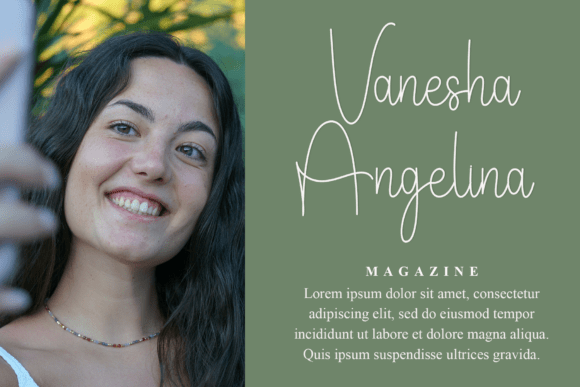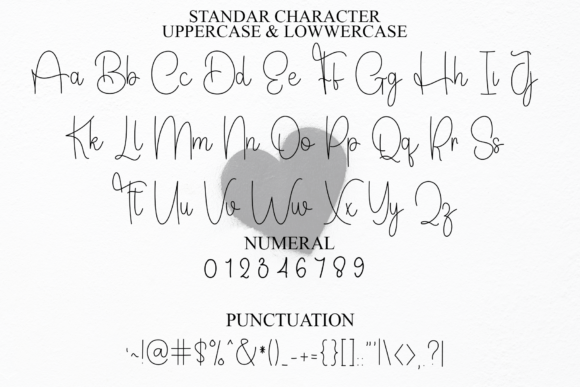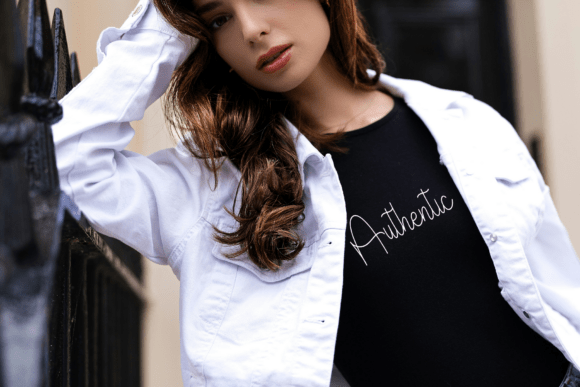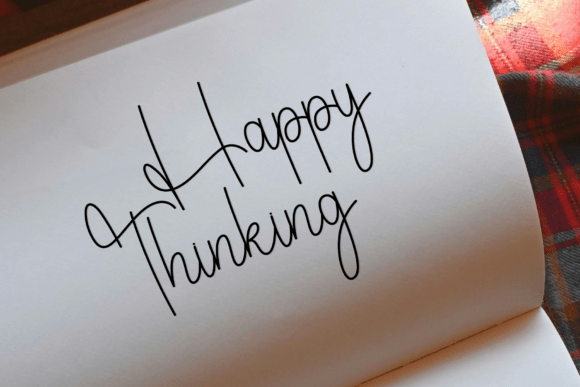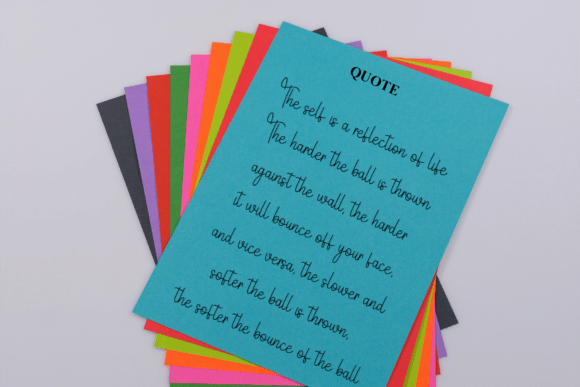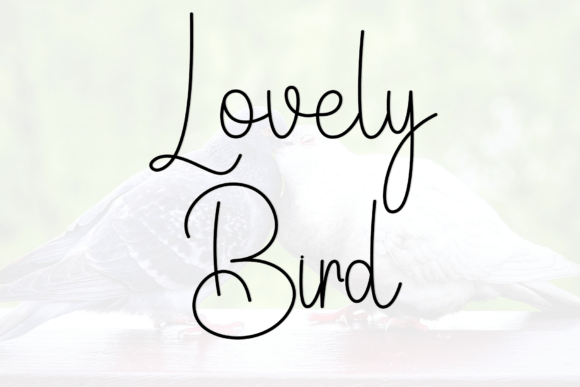
Introducing Friendstar Font: The Perfect Blend of Casual and Creative
Are you tired of using the same old fonts for your personal projects, invitations, and social media graphics? Look no further than Friendstar Font, a casual and creative typeface that exudes warmth and friendliness. With its round, playful strokes, Friendstar Font creates a relaxed and approachable feel that’s perfect for designers and crafters looking to add a personal touch to their work.
The Charm of Friendstar Font
Friendstar Font boasts a charming, hand-drawn aesthetic that adds a fun and unique touch to any design. Its playful strokes and rounded edges create a sense of approachability and warmth, making it perfect for projects that require a personal and friendly feel. Whether you’re designing invitations, social media graphics, or personal projects, Friendstar Font is sure to make your work stand out.
Key Features of Friendstar Font
- Casual and Creative: Friendstar Font is designed to be casual and creative, making it perfect for personal projects and social media graphics.
- Warm and Friendly: The font’s round, playful strokes create a warm and friendly feel that’s sure to engage your audience.
- Hand-Drawn Aesthetic: Friendstar Font features a charming, hand-drawn aesthetic that adds a unique touch to any design.
Why Choose Friendstar Font?
So why choose Friendstar Font over other fonts? Here are just a few reasons:
- Unique and Creative: Friendstar Font offers a unique and creative aesthetic that’s sure to make your designs stand out.
- Warm and Friendly: Friendstar Font creates a warm and friendly feel that’s perfect for personal projects and social media graphics.
Tips for Using Friendstar Font
Here are a few tips for using Friendstar Font in your designs:
- Pair with Other Fonts: Friendstar Font pairs well with other fonts, so don’t be afraid to experiment with different combinations.
- Use for Headings and Titles: The font’s playful strokes make it perfect for headings and titles.
- Add a Personal Touch: Use Friendstar Font to add a personal touch to your designs, whether it’s a personal project or a social media graphic.
In conclusion, Friendstar Font is a casual and creative typeface that’s perfect for designers and crafters looking to add a personal touch to their work. With its warm and friendly aesthetic, compatibility with various application engines, and ease of use, Friendstar Font is a versatile and reliable choice for any design project.